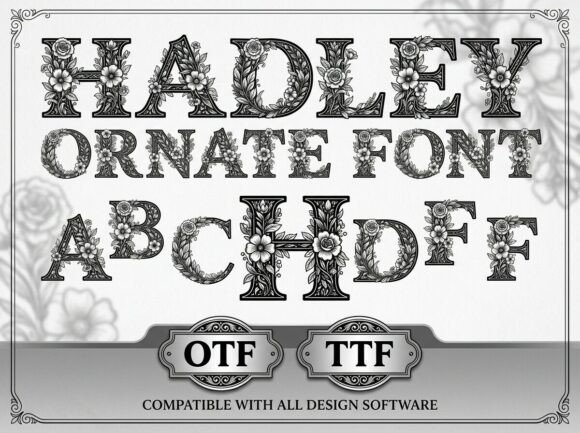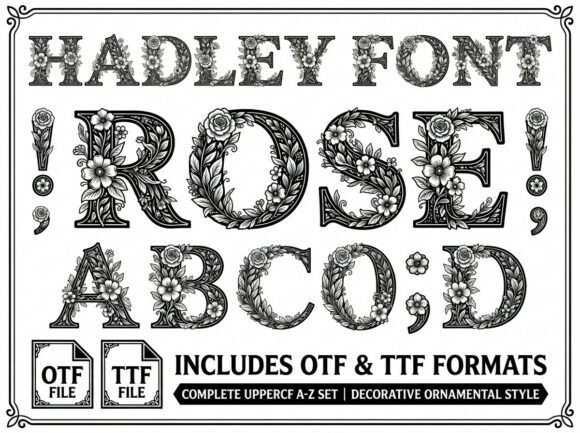
Elevate Your Typography with Hadley Font: A Masterpiece of Victorian Elegance
Are you looking for a typography style that exudes luxury, sophistication, and a touch of antique romanticism? Look no further than the Hadley font, a premium ornamental typeface that is sure to elevate your design to a work of fine art. With its intricate woodcut-style detailing and classic slab-serif framework, Hadley font is the perfect choice for designers and crafters who want to add a touch of Victorian elegance to their projects.
The Art of Hadley Font
Each character in the Hadley font is a complex masterpiece, featuring a dense inhabitation of hand-etched roses, delicate blossoms, and swirling botanical vines. The intricate detailing creates a rich, textured look that is perfect for high-end heritage branding, luxury spirit labels, historical book covers, and sophisticated wedding crests. The font’s classic slab-serif framework provides a solid foundation for the ornate decorations, making it a versatile choice for a wide range of design applications.
Uncompromising Detail and Craftsmanship
Hadley font is a true masterpiece of artisanal craftsmanship. Every character is carefully crafted to ensure that the intricate details are preserved, making it a font that is sure to impress even the most discerning designers. The font’s creator has poured their heart and soul into every detail, from the delicate curves of the roses to the swirling patterns of the botanical vines. The result is a font that is not only beautiful but also highly detailed and intricate.
Perfect for Luxury Branding and Design
Hadley font is the perfect choice for luxury branding and design projects that require a touch of elegance and sophistication. Its rich, textured look and intricate detailing make it ideal for high-end heritage branding, luxury spirit labels, and historical book covers. The font’s classic slab-serif framework also makes it a great choice for wedding crests, invitations, and other formal design applications.
Key Features of Hadley Font
• Intricate woodcut-style detailing: Each character features intricate hand-etched roses, delicate blossoms, and swirling botanical vines.
• Classic slab-serif framework: A solid foundation for the ornate decorations, making it a versatile choice for a wide range of design applications.
• Uncompromising detail and craftsmanship: Every character is carefully crafted to ensure that the intricate details are preserved.
• Perfect for luxury branding and design: Ideal for high-end heritage branding, luxury spirit labels, historical book covers, and sophisticated wedding crests.
Tips for Using Hadley Font
Hadley font is a true masterpiece of Victorian elegance and artisanal craftsmanship. With its intricate woodcut-style detailing and classic slab-serif framework, it is the perfect choice for designers and crafters who want to add a touch of luxury and sophistication to their projects. Whether you’re working on a high-end heritage branding project, a luxury spirit label, or a sophisticated wedding crest, Hadley font is sure to elevate your typography to a work of fine art.